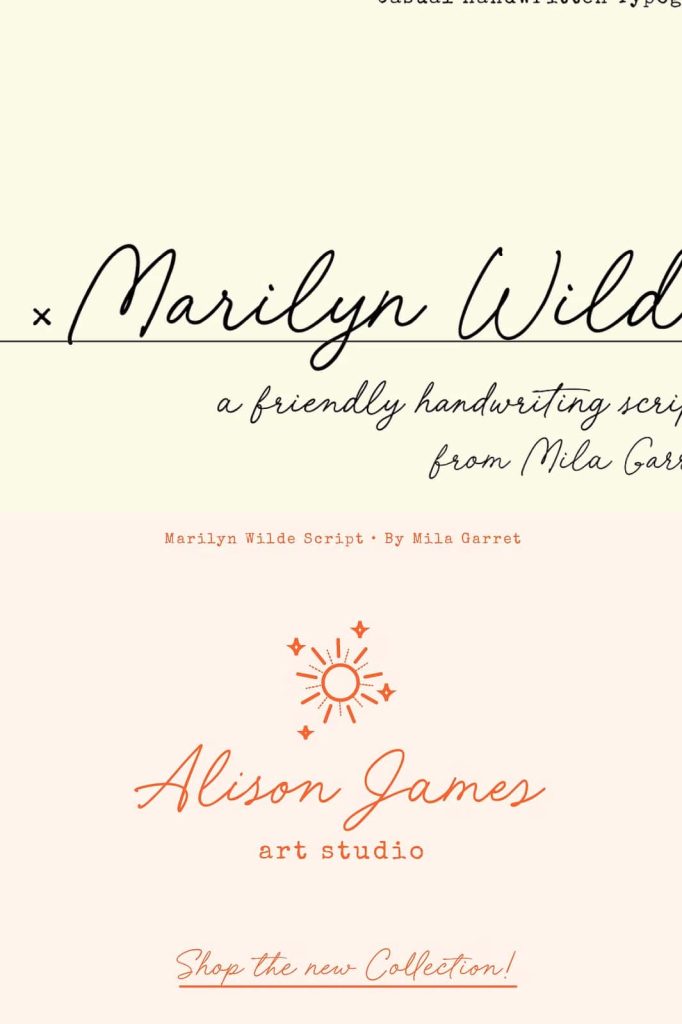
Marilyn Wilde is a brand new handwriting font, full of sweetness and friendly curves. With more subtle ligatures, Marilyn Wilde is inspired by neat cursive handwriting